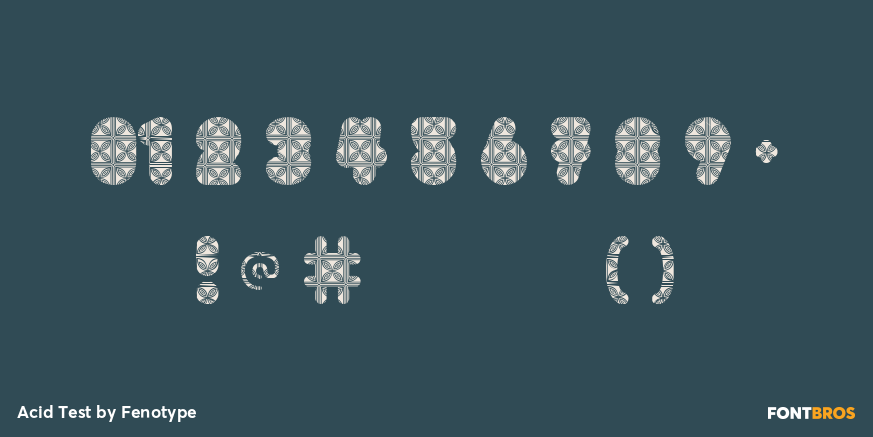
Acid Test
Font Family by Fenotype
Acid Test by Fenotype is a bold, psychedelic display typeface that channels the spirit of vintage concert posters and underground comix. Its warped, liquid letterforms bring instant personality and movement to any design.
The family includes three expressive styles, Progressive, Regressive, and Wallpaper, giving you multiple ways to dial up the retro vibe. Perfect for posters, album art, branding, packaging, and anywhere you want typography that refuses to blend in.
Acid Test is not subtle. And that’s exactly the point.